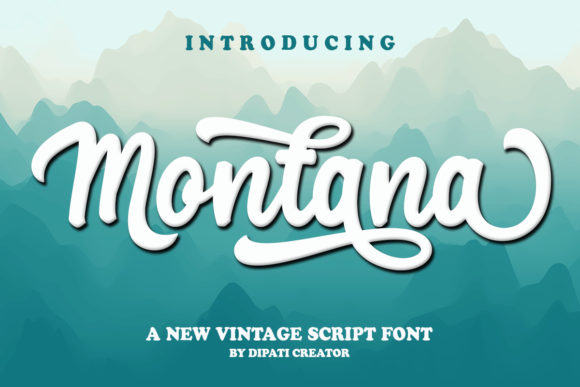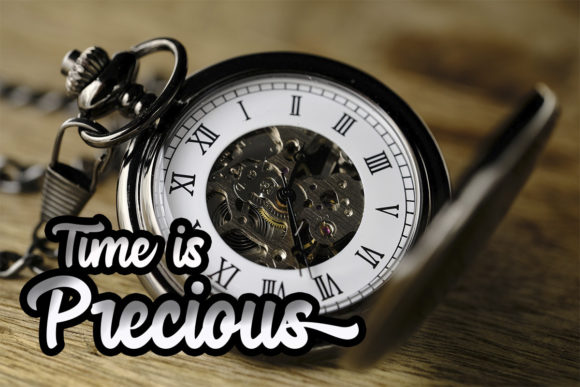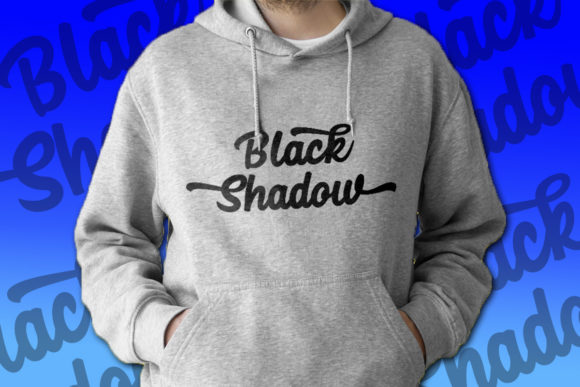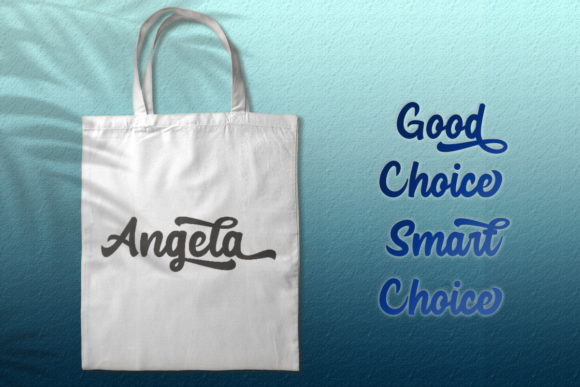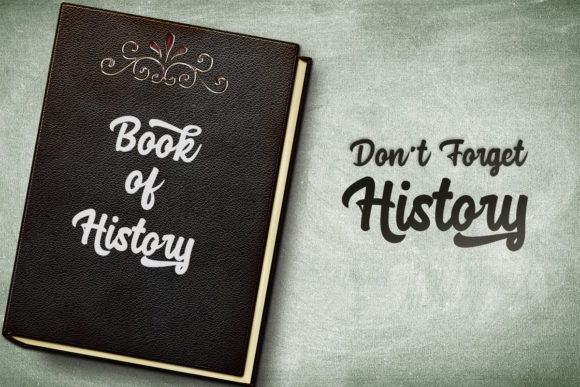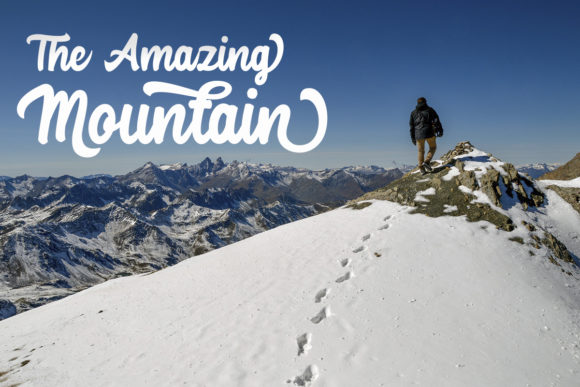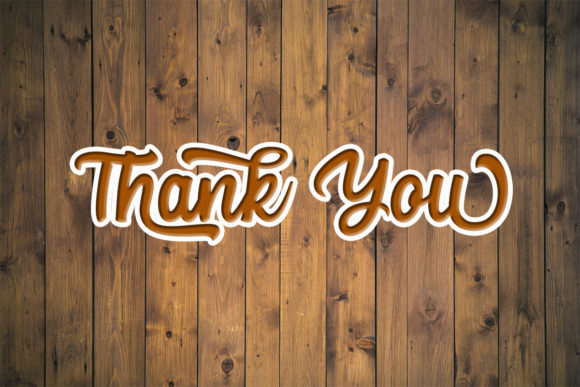
Montana Font
About Montana Font
Introducing Montana, a lovely, elegant, and vintage-styled script font. This font is characterized by its ravishing style, which creates a sense of authenticity and creativity. It’s not just a font, it’s a tool that brings your designs to life.
The characters in Montana are elegant and vintage-styled, adding a touch of personality to your designs. The font also includes PUA encoding, giving you the flexibility to access all glyphs and swashes with ease and customize your text to suit your design needs.
Montana is versatile and can be used in a variety of design projects. It’s perfect for wedding invitations, where its ravishing style adds a touch of romance and sophistication. It’s also great for stationary arts, where its vintage style conveys a sense of elegance and warmth.
For t-shirt or hoodie prints, Montana stands out. Its stylish script adds a personal touch, making the prints more relatable and impactful. Similarly, it’s a great choice for social media posts, where its vintage style can catch the eye and engage your audience.
For product packaging, Montana is a game-changer. Its unique style can make your product stand out and leave a lasting impression.
In conclusion, Montana is more than just a font. It’s a design asset that can elevate your work and make it stunning. Whether you’re designing a logo, crafting a social media post, or creating a movie title, Montana can help you achieve your design goals. So why wait? Start creating stunning work with Montana today!